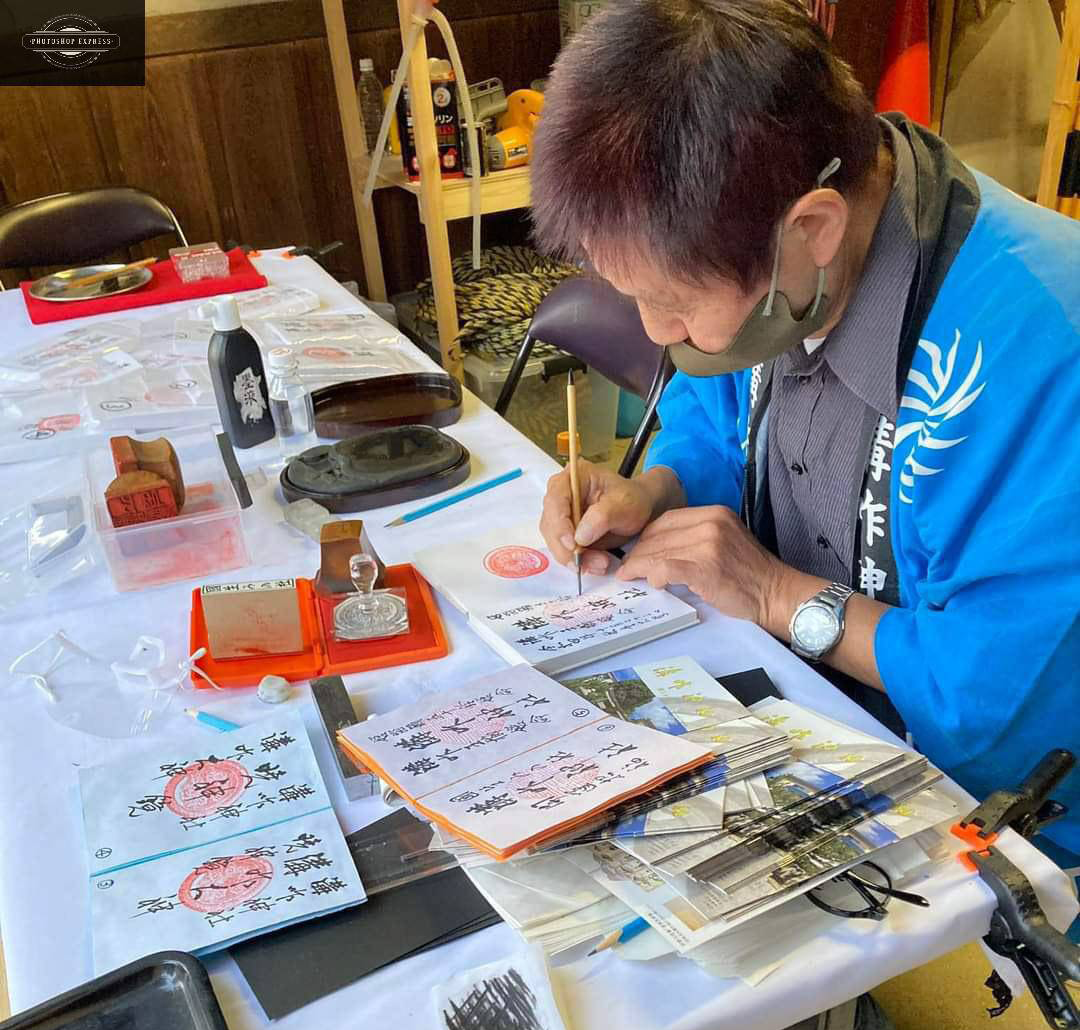
Eiichi Kawazoe 川添栄一
From a young age, Eiichi Kawazoe studied calligraphy under his father’s guidance. In the university’s special calligraphy department, he learned kanji from Kiseki Kosaka and Toson Amaishi, and kana from Kitsunan Tanibe and Kayu Hirata. To pursue the fluent Japanese calligraphy of kanji and kana that began with Yukinari, he has collected many ancient documents. He continues to refine his skills to preserve the traditional Japanese characters that developed alongside ukiyo-e. He also writes shrine seals and rakugo title cards, and challenges himself with the characters used in sumo and kabuki.